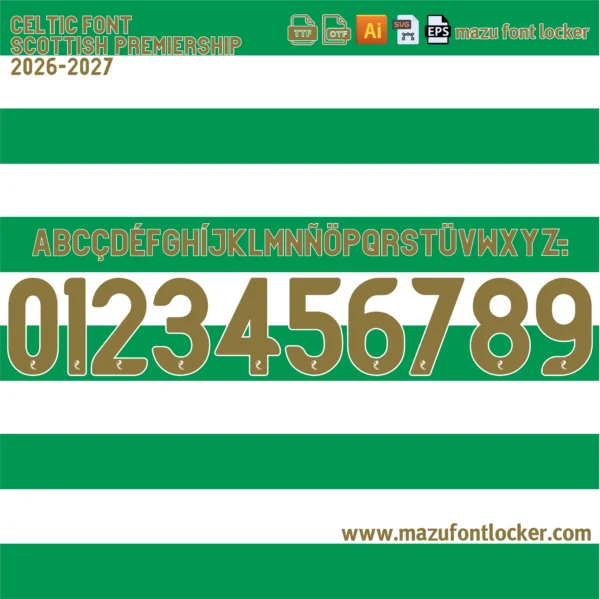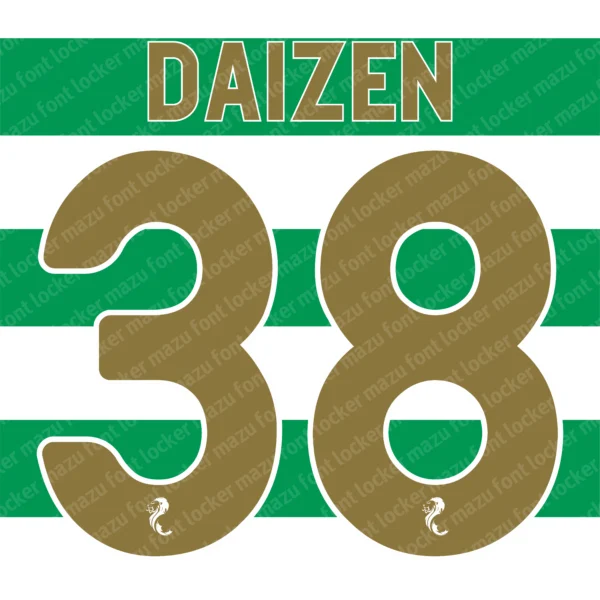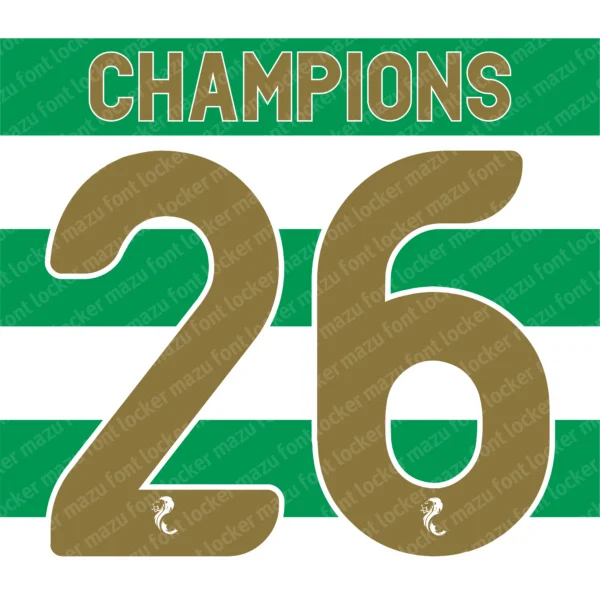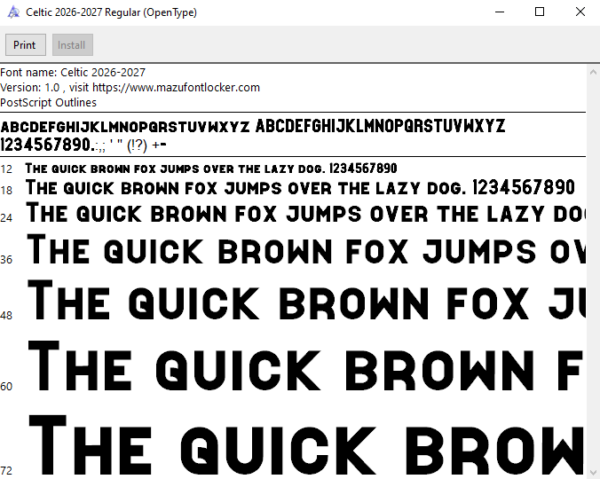
Celtic 2026-2027 Font Vector – Stunning Legendary Hoops Masterpiece
Download the Celtic 2026-2027 Font Vector (AI, EPS, SVG, PDF, OTF, TTF) and unleash the iconic, bold, and explosive match typography from Celtic’s legendary 2026-2027 season. This font captures the classic Green & White lettering, reimagined with sharp modern power and authentic Hoops pride.
Channeling the fearless Celtic spirit with raw Scottish football passion, it delivers a powerful fusion of historic club heritage and timeless Glasgow intensity. Perfect for premium jersey mockups, football designs, and collector-worthy Celtic 2026-2027 art.
Celtic 2026-2027 Font Vector – Classic Hoops Typeface
The Celtic 2026-2027 Font Vector is a premium typeface that faithfully recreates the iconic lettering from Celtic FC’s 2026-2027 season jerseys. This vector font kit captures the bold, proud athletic style that represents one of Scotland’s greatest and most historic football clubs.
Designed for football designers, graphic artists, and passionate Celtic fans, the Celtic 2026-2027 Font Vector delivers authentic aesthetics perfect for jersey mockups, fan merchandise, posters, social media content, and dynamic football campaigns.
This font set is highly valued for its precision and premium quality. Every letter and number has been meticulously recreated to match the official typography used on Celtic’s 2026-2027 shirts. It perfectly blends Scottish football heritage with contemporary design excellence.
The letterforms feature bold, athletic proportions with a slightly condensed and dynamic stance. The strong, clean strokes deliver powerful visual presence while maintaining excellent readability — ideal for both large squad numbers and detailed graphic applications.
The numerals showcase modern football styling with sharp contours, balanced weight, and authentic athletic proportions, ensuring outstanding results across print and digital media.
- Full uppercase A–Z and numbers 0–9 in the official 2026-2027 Celtic style
- Special Celtic crest glyph for authentic number detailing
- Multilingual Latin support with diacritics
- Includes precise crest placement used under player numbers on the 2026-2027 kit
Celtic 2026-2027 Season
Celtic Football Club enters the 2026-2027 season carrying forward one of the richest traditions in world football. Founded in 1887 by Brother Walfrid, Celtic has long been a symbol of Irish-Scottish heritage, community, and attacking football. The club continues its fierce rivalry with Rangers in the Old Firm derby while aiming to dominate the Scottish Premiership and make strong runs in European competitions.
The 2026-2027 kit represents a new chapter for The Hoops, blending the club’s iconic green and white hooped design with fresh modern typography. Supported by one of the most passionate fanbases in Europe, Celtic remains committed to playing attractive, high-pressing football at Celtic Park — famously known as Paradise. This season’s lettering embodies the pride, resilience, and glory that define the club.